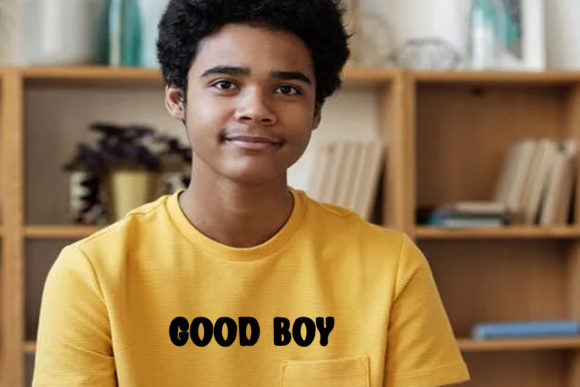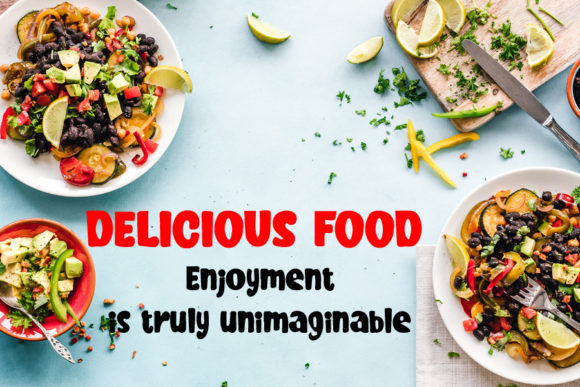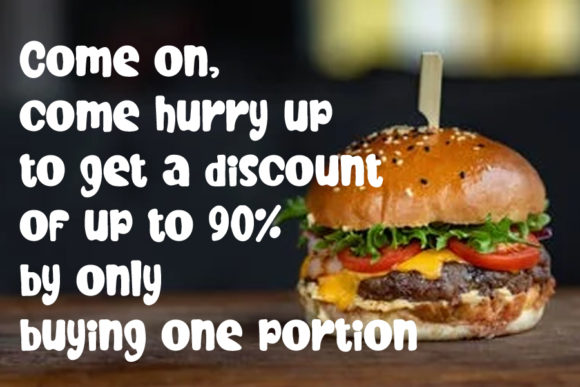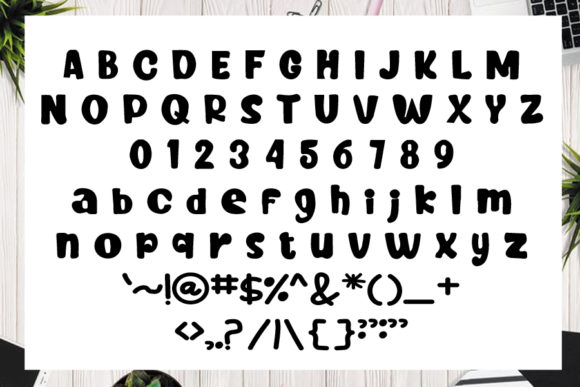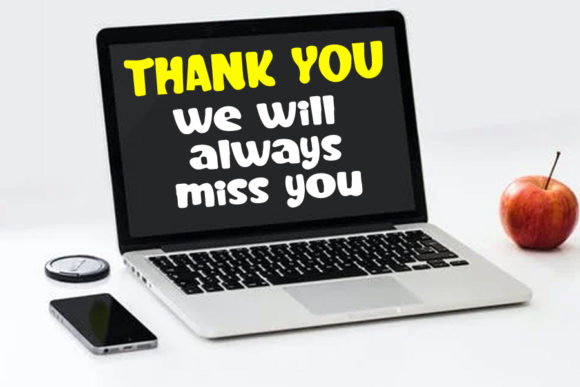
Introducing Cartoon Font: The Playful and Colorful Display Font for Kids’ Projects
Are you looking for a font that embodies the playfulness and authenticity of childhood? Look no further than Cartoon Font, a cute and colorful display font that’s perfect for any children’s activity or school project. In this article, we’ll explore the features and benefits of Cartoon Font, and why it’s a must-have for designers and crafters working on kids’ projects.
What is Cartoon Font?
Cartoon Font is a display font designed to capture the whimsical and imaginative world of cartoons. Its playful and colorful design makes it an ideal choice for projects aimed at kids, such as children’s books, educational materials, activity sheets, and more. The font’s bold and bubbly letters are sure to grab attention and add a touch of fun to any design.
Key Features of Cartoon Font
- Playful Design: Cartoon Font features bold, rounded letters with a playful and carefree design that’s sure to delight kids.
- Colorful: The font comes in a range of bright and cheerful colors, making it perfect for designs that require a pop of color.
- Easy to Read: Despite its playful design, Cartoon Font is easy to read, making it suitable for use in educational materials and children’s books.
- Versatile: Cartoon Font can be used for a wide range of projects, from digital designs to print materials.
Benefits of Using Cartoon Font
So why choose Cartoon Font for your kids’ project? Here are just a few benefits of using this fun and playful font:
- Adds a Touch of Whimsy: Cartoon Font adds a touch of whimsy and imagination to any design, making it perfect for kids’ projects.
- Engages Young Minds: The font’s playful design is sure to engage young minds and capture their attention.
How to Use Cartoon Font in Your Designs
Using Cartoon Font in your designs is easy. Here are a few tips to get you started:
- Pair with Other Fonts: Pair Cartoon Font with other fonts to create a unique and eye-catching design.
- Use in Headings and Titles: Use Cartoon Font in headings and titles to add a touch of playfulness to your design.
- Add Graphics and Illustrations: Add graphics and illustrations to your design to bring Cartoon Font to life.
Who Can Benefit from Cartoon Font?
Cartoon Font is perfect for anyone working on kids’ projects, including:
- Graphic Designers: Graphic designers working on children’s books, activity sheets, and other kids’ projects.
- Crafters: Crafters creating handmade cards, gift tags, and other paper crafts for kids.
- Teachers: Teachers creating educational materials and classroom decorations.
- Parents: Parents creating homemade activity sheets and educational materials for their kids.
In conclusion, Cartoon Font is a fun and playful display font that’s perfect for kids’ projects. Its bold and colorful design makes it an ideal choice for designers and crafters looking to add a touch of whimsy to their designs. With its ease of use, versatility, and cost-effectiveness, Cartoon Font is a must-have for anyone working on kids’ projects.